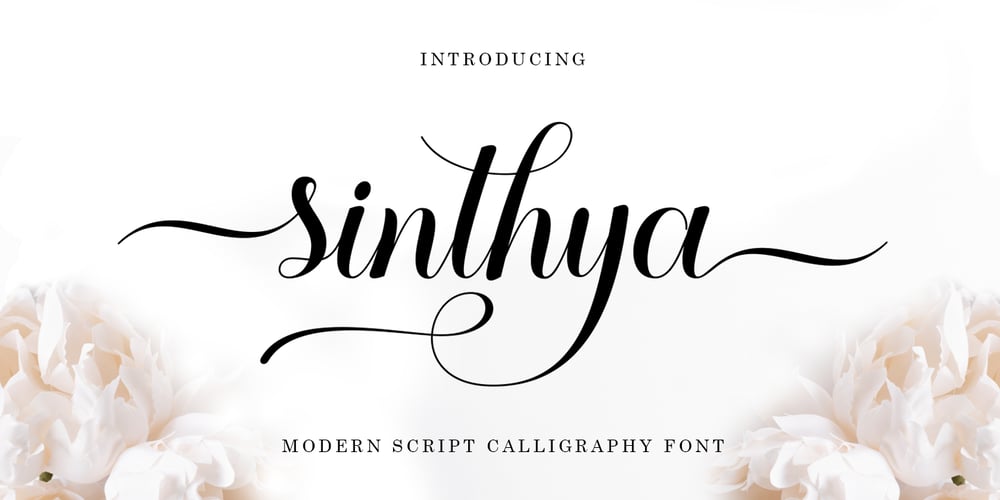
Sinthya Script
Sinthya Script font
Sinthya Script Font Family was designed by Reza Haitami and published by Black Studio. Sinthya Script contains 1 styles and family package options. Sinthya Script is a beautiful, modern and new calligraphy font with many alternative styles, swashes make this font look natural, elegant and perfect for extraordinary projects.Sinthya Script is perfect for various projects such as invitations, product packaging, product design, labels, photography, watermarks, logos & branding or whatever.To use beautiful swash, you need a program that supports OpenType features such as Adobe Illustrator CS, Adobe Photoshop CC, Adobe Indesign and Corel Draw.Please send message if you have any questions,thank you